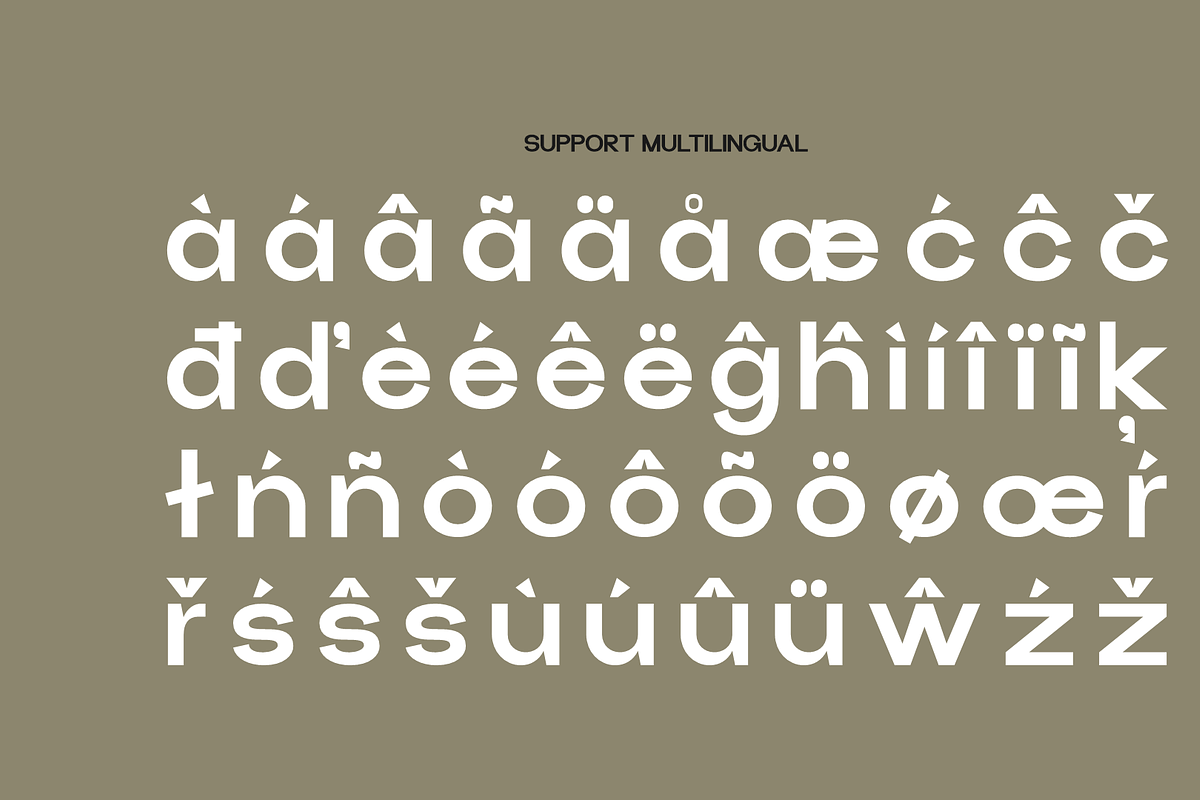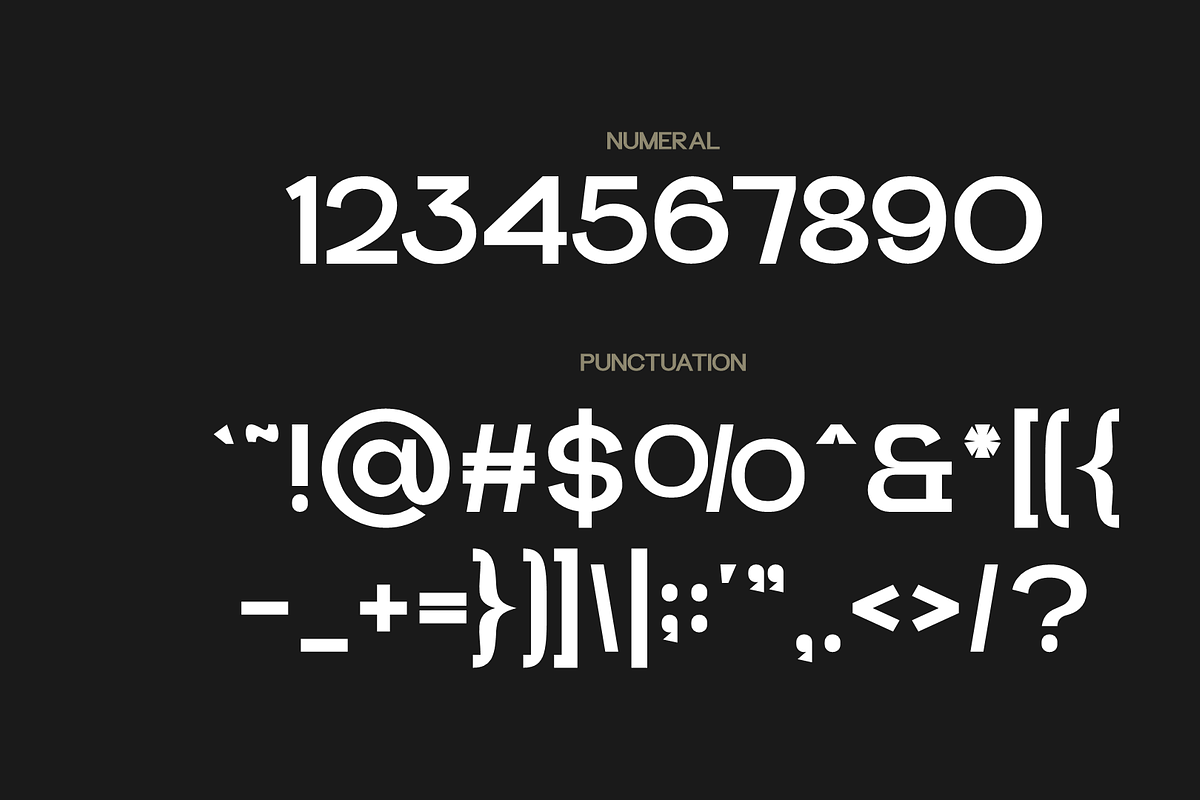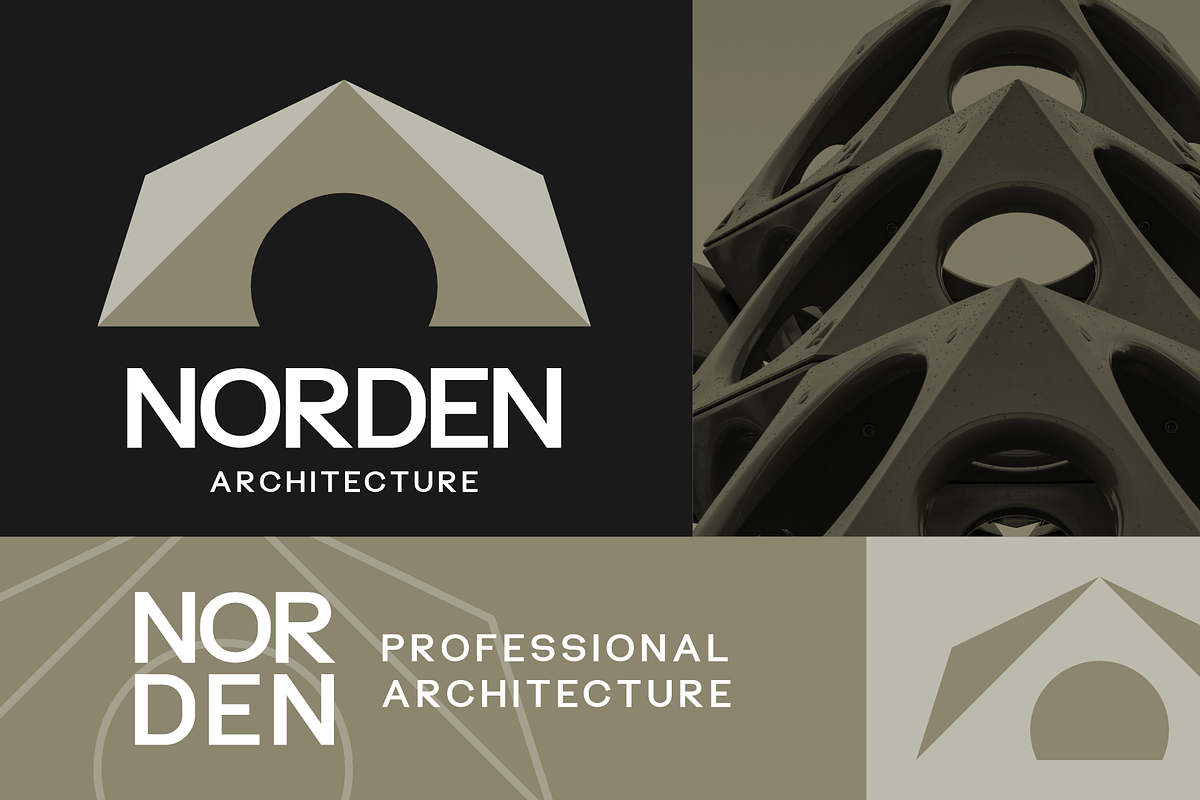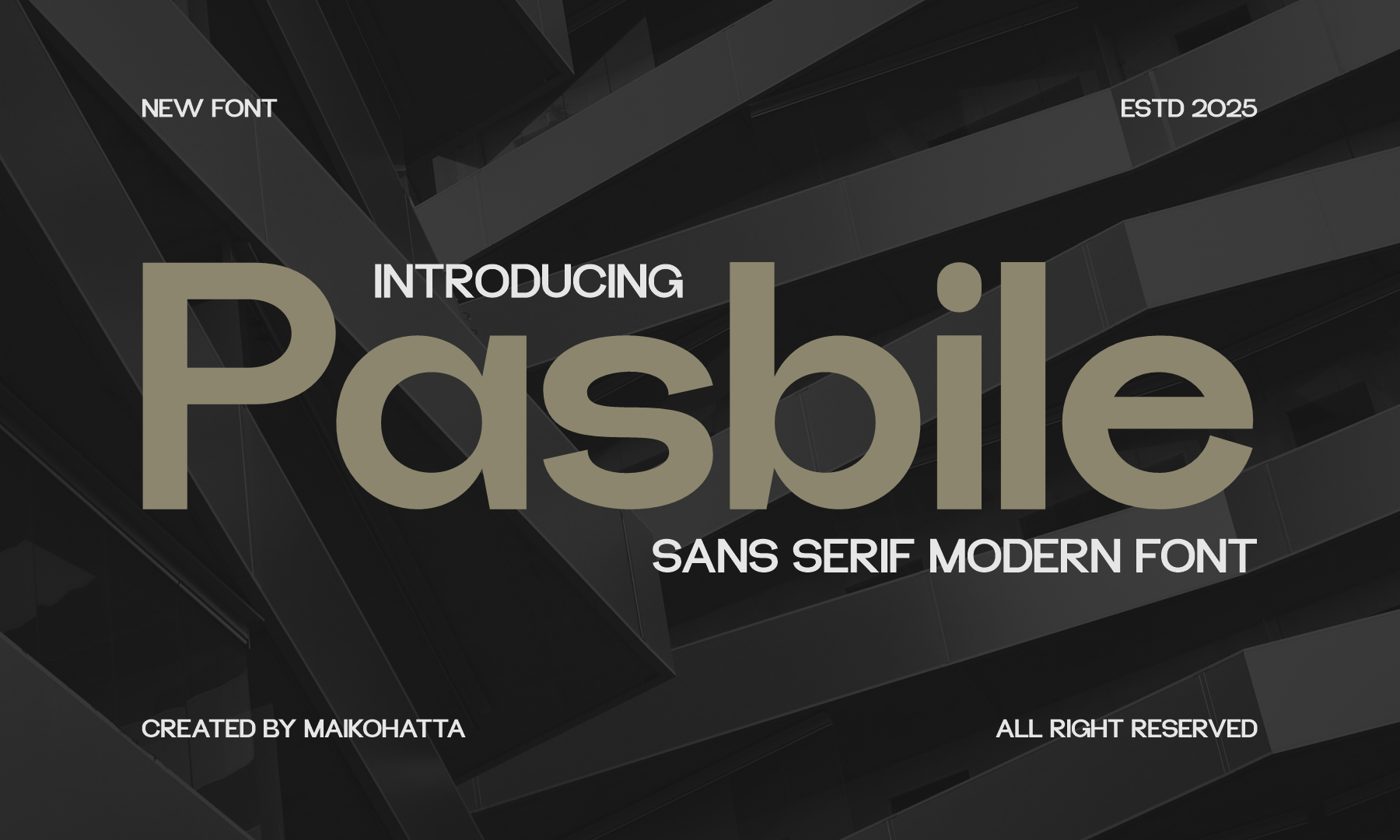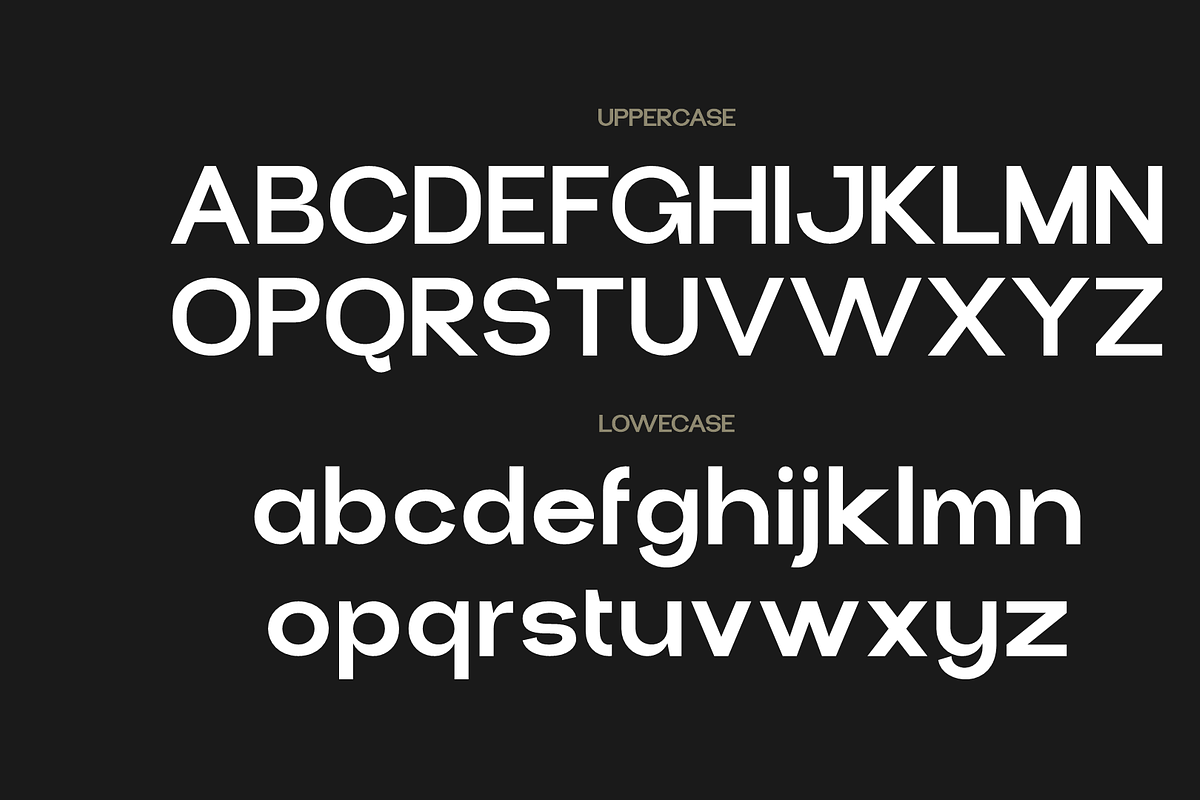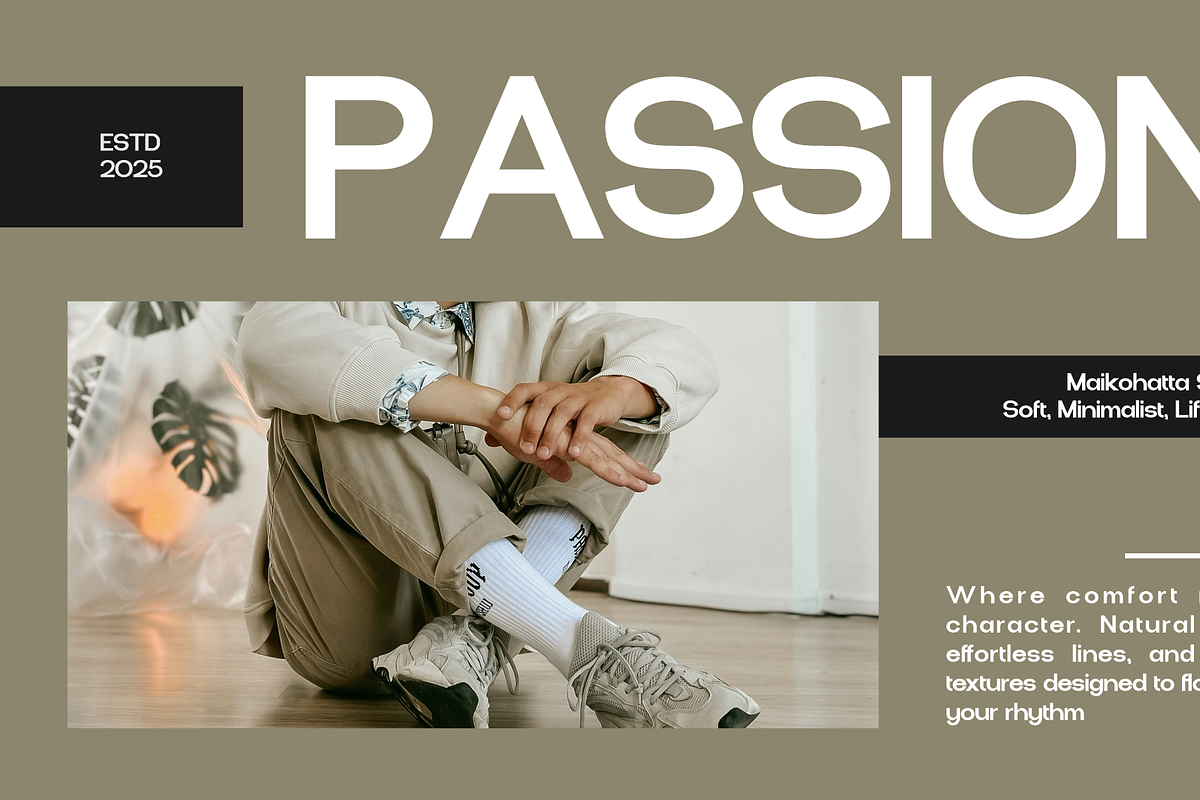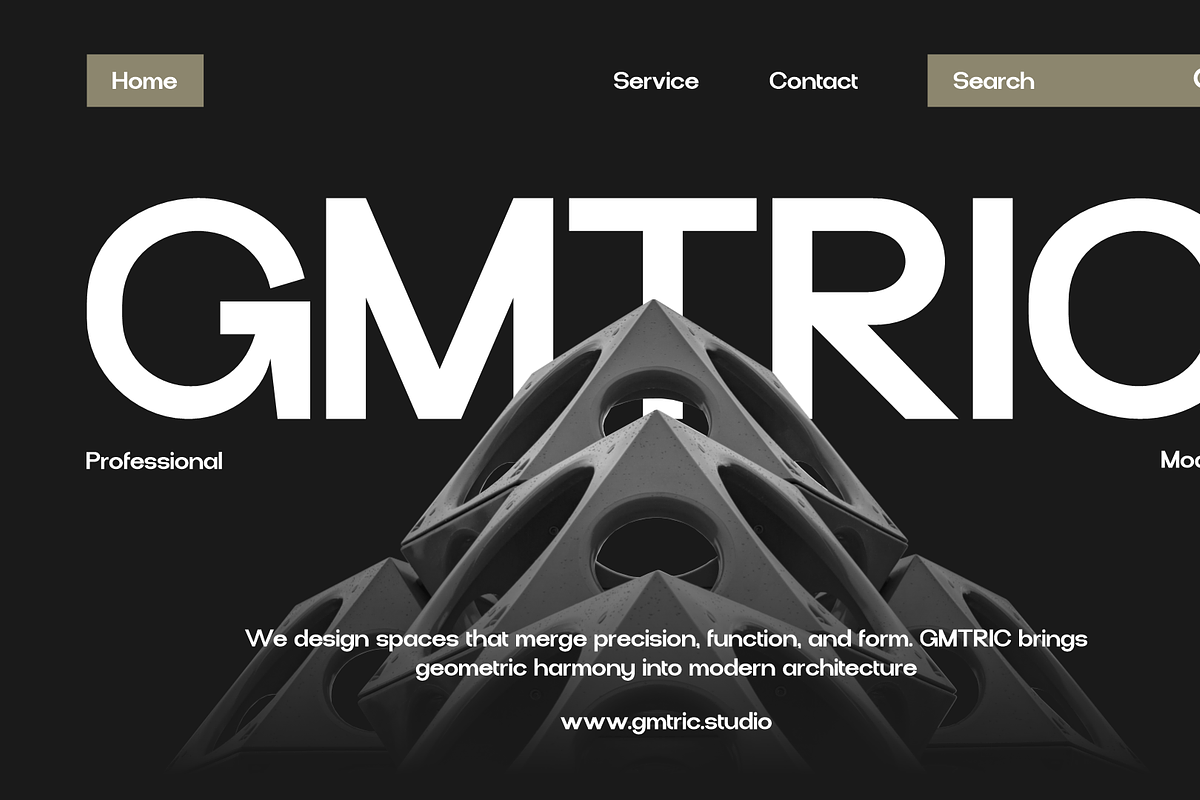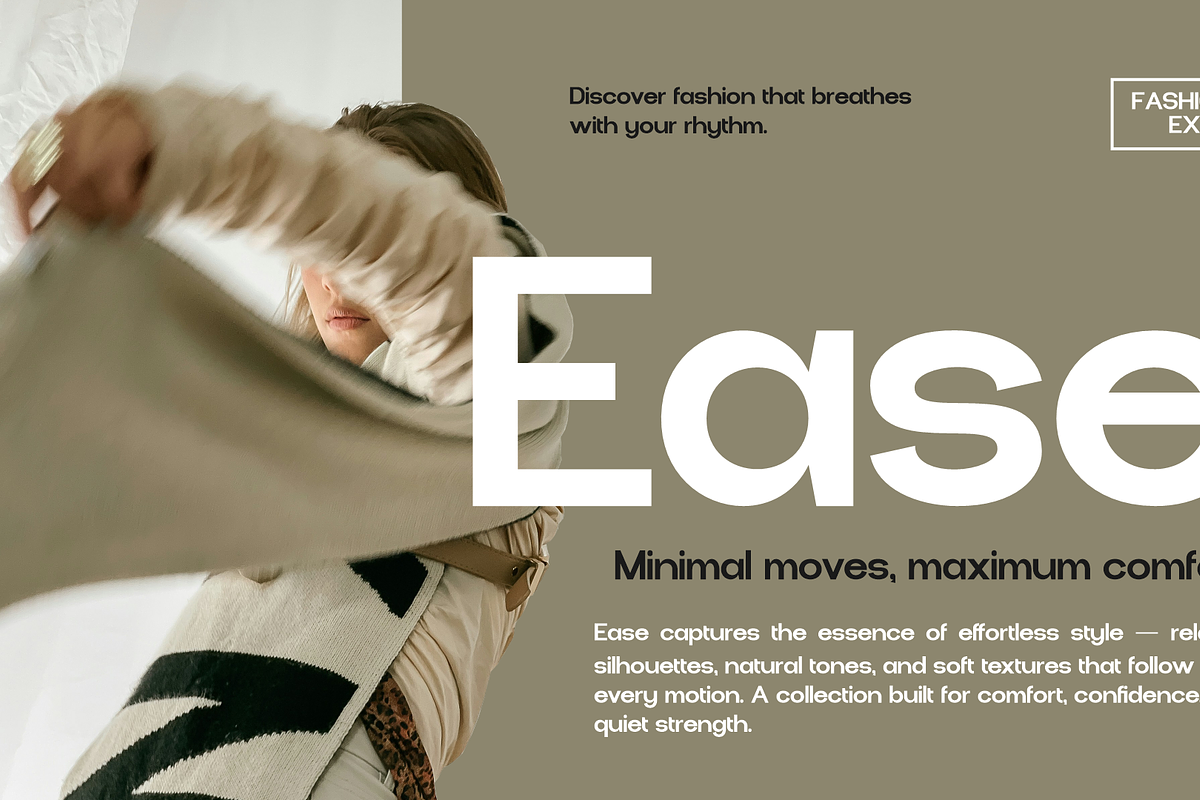
Pasbile - Sans Serif Modern Font
Pasbile – Sans Serif Modern Font
Pasbile is a sleek and confident sans serif font that combines geometric precision with modern minimalism. Its bold and clean letterforms create a strong visual presence, making it perfect for contemporary branding, editorial design, and digital interfaces. The smooth curves and balanced proportions lend a sense of sophistication and versatility, suitable for both display and body text.
Ideal for projects that demand a modern and professional aesthetic—such as logos, posters, packaging, and web design—Pasbile exudes clarity and elegance with every character.